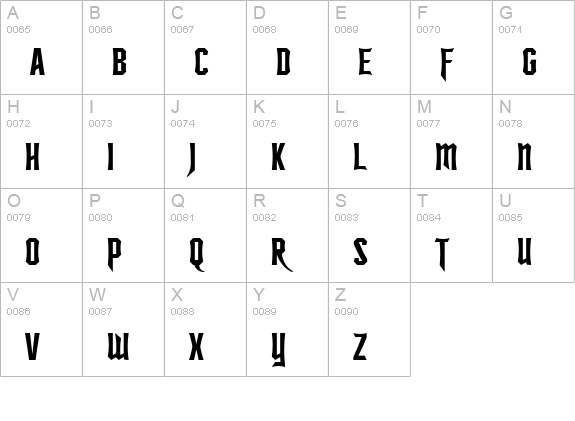
SF Ironsides Font Details
SF Ironsides is a captivating and versatile font that effortlessly combines modernity with a touch of vintage charm. Its bold and sturdy letterforms exude strength and reliability, making it an ideal choice for a wide range of design projects. With its clean lines and balanced proportions, SF Ironsides adds a touch of sophistication to any design. Whether used for headlines, logos, posters, or branding materials, this font commands attention and leaves a lasting impression. But what sets SF Ironsides apart is that it is not only visually appealing, but also freely available for download. You read that right – this incredible font can be yours without spending a penny. Thanks to FontsMarket.com, you can easily access and download SF Ironsides, making it accessible to designers of all levels. So why wait? Don't miss out on the opportunity to enhance your design projects with the timeless elegance of SF Ironsides. Head over to FontsMarket.com now and discover the power and beauty of this free font.